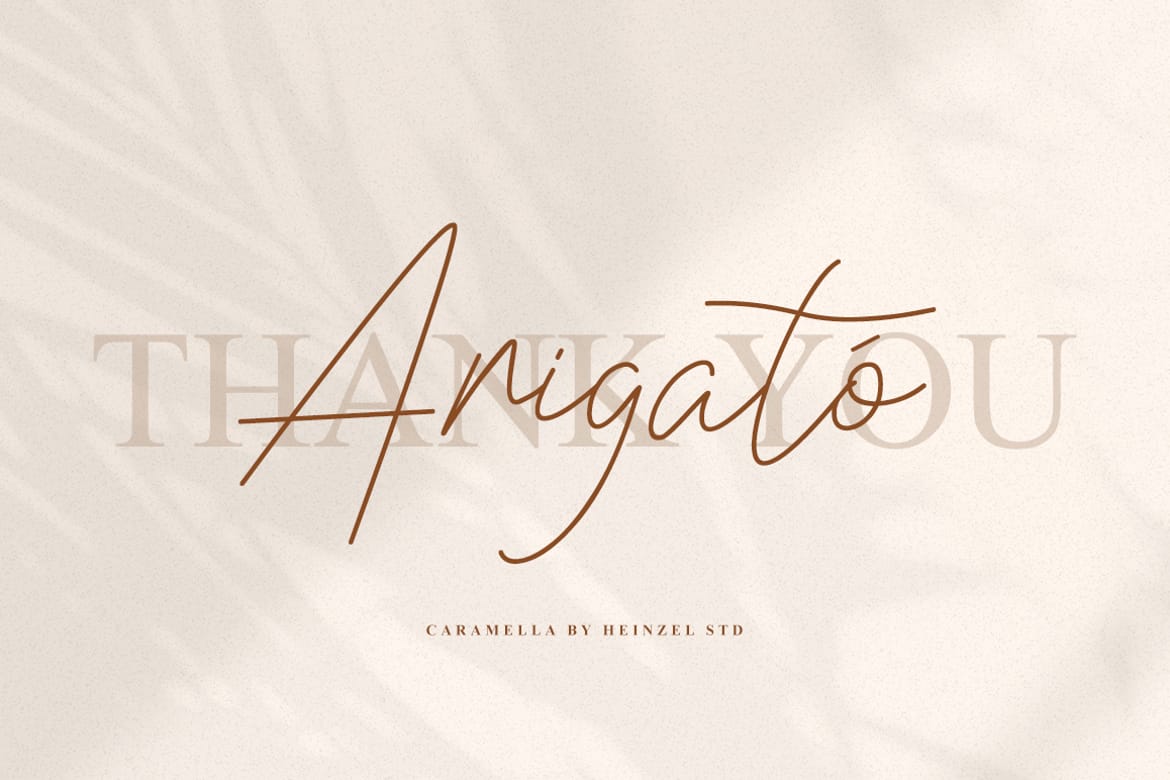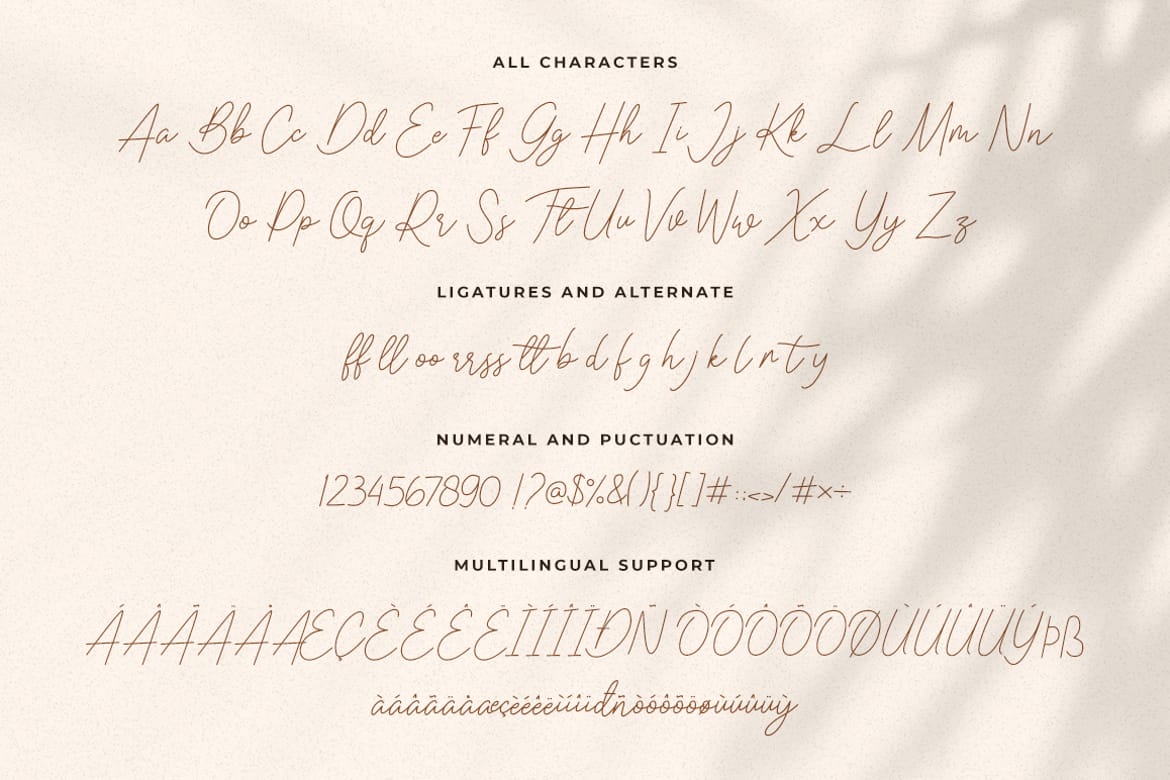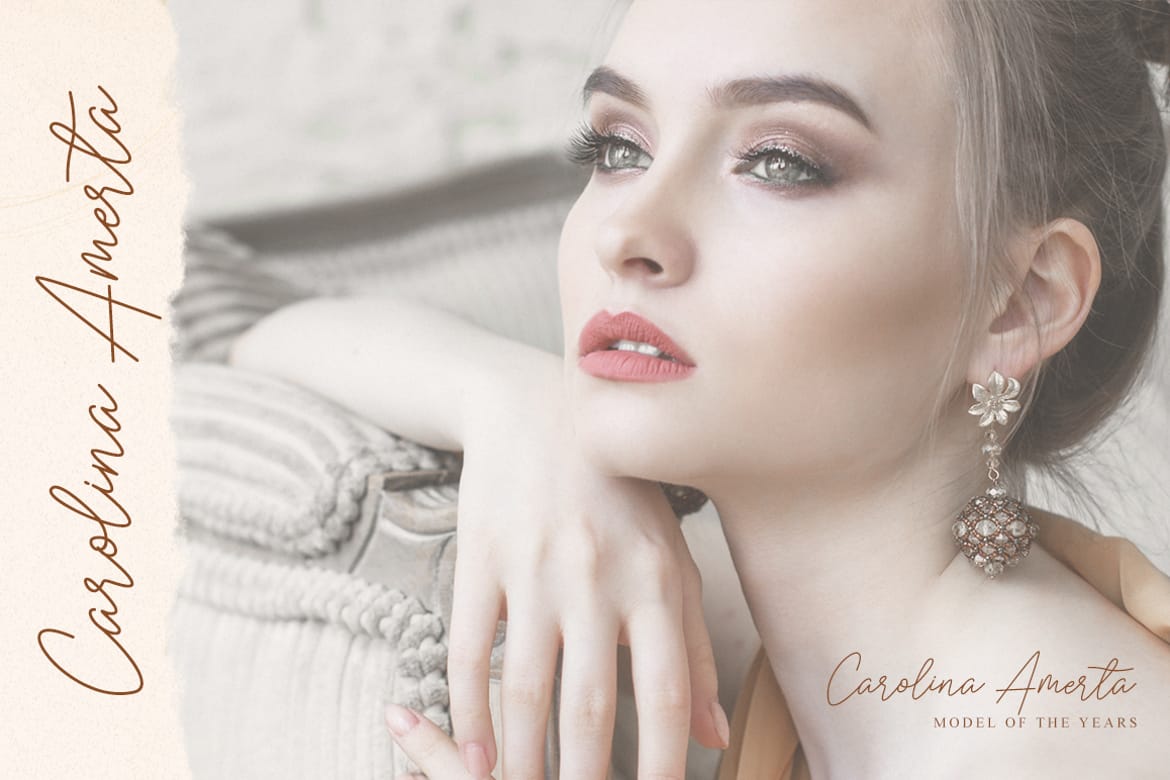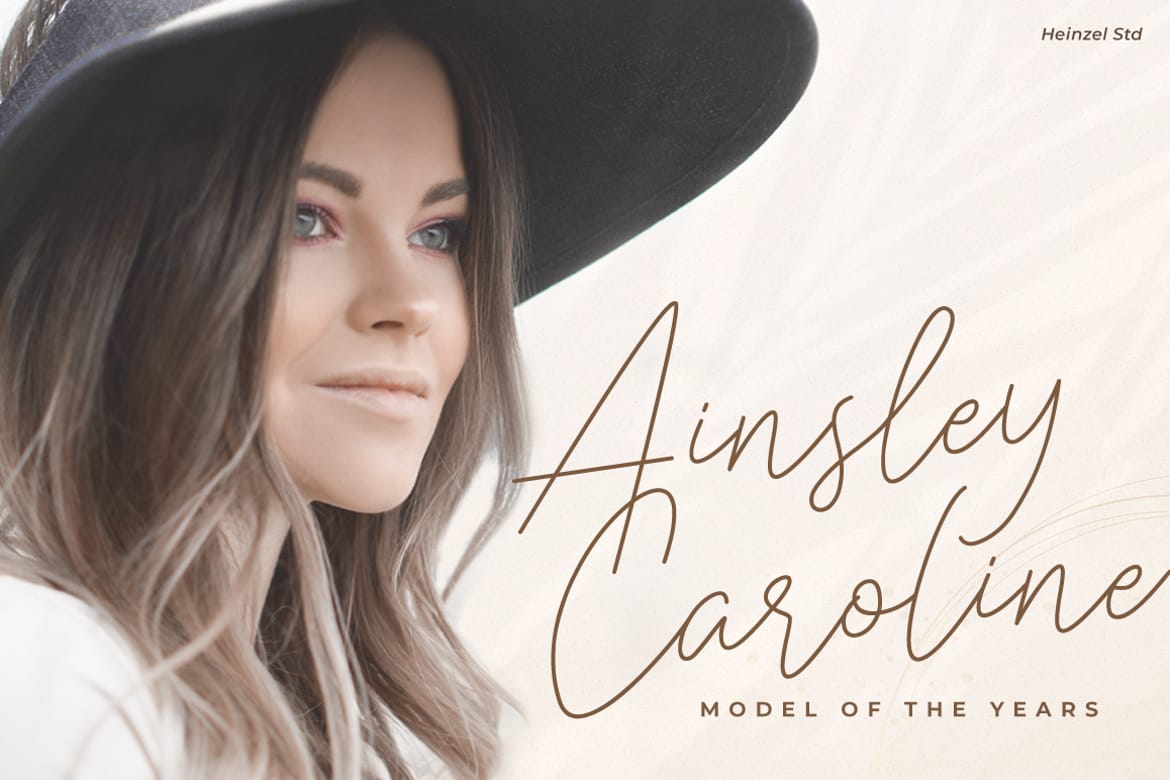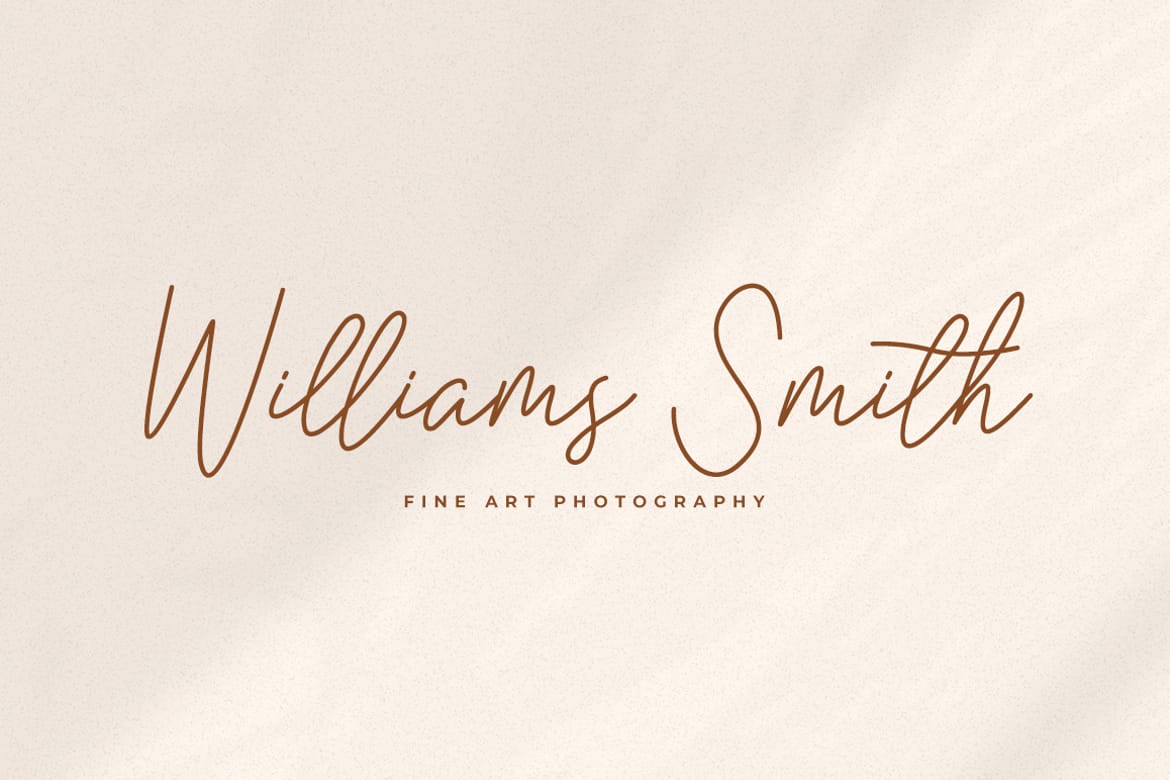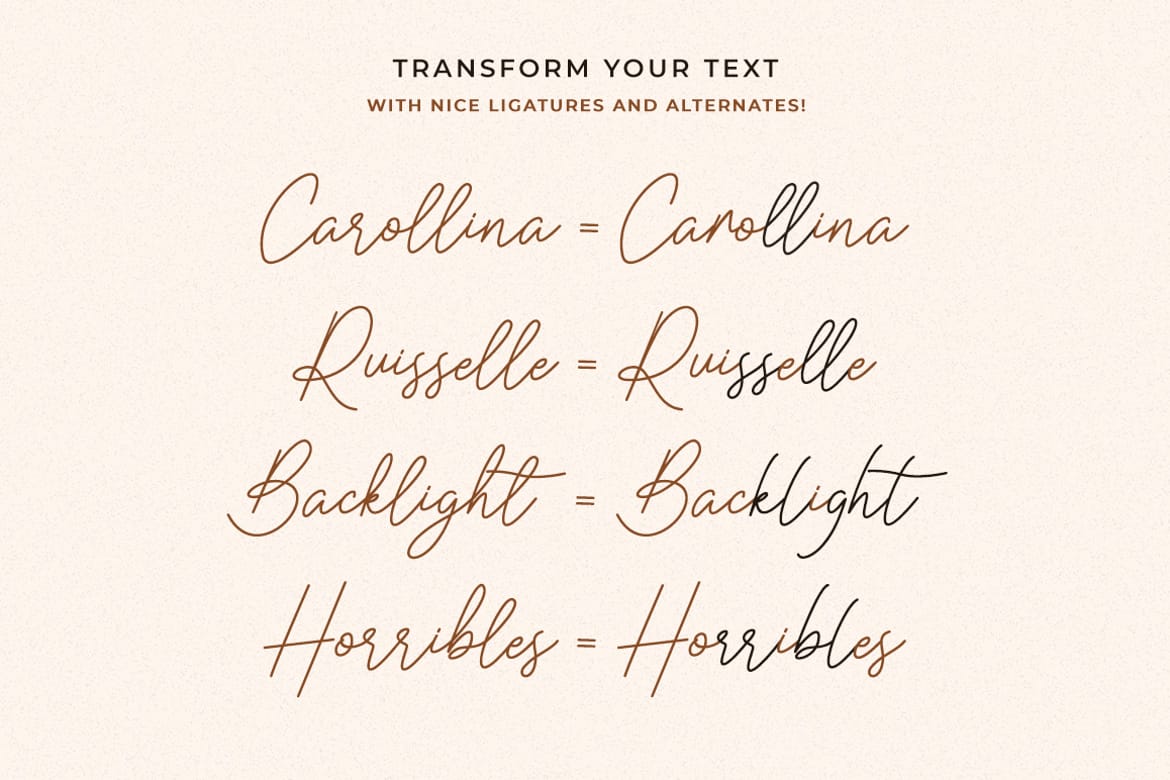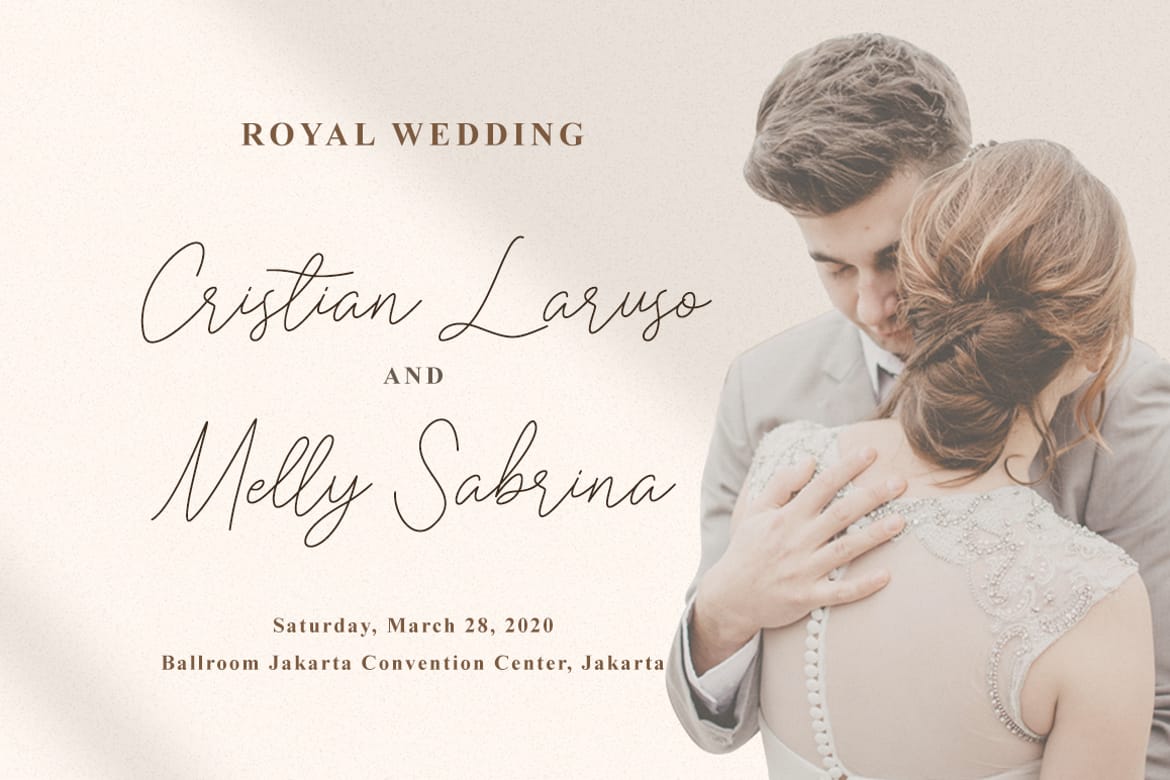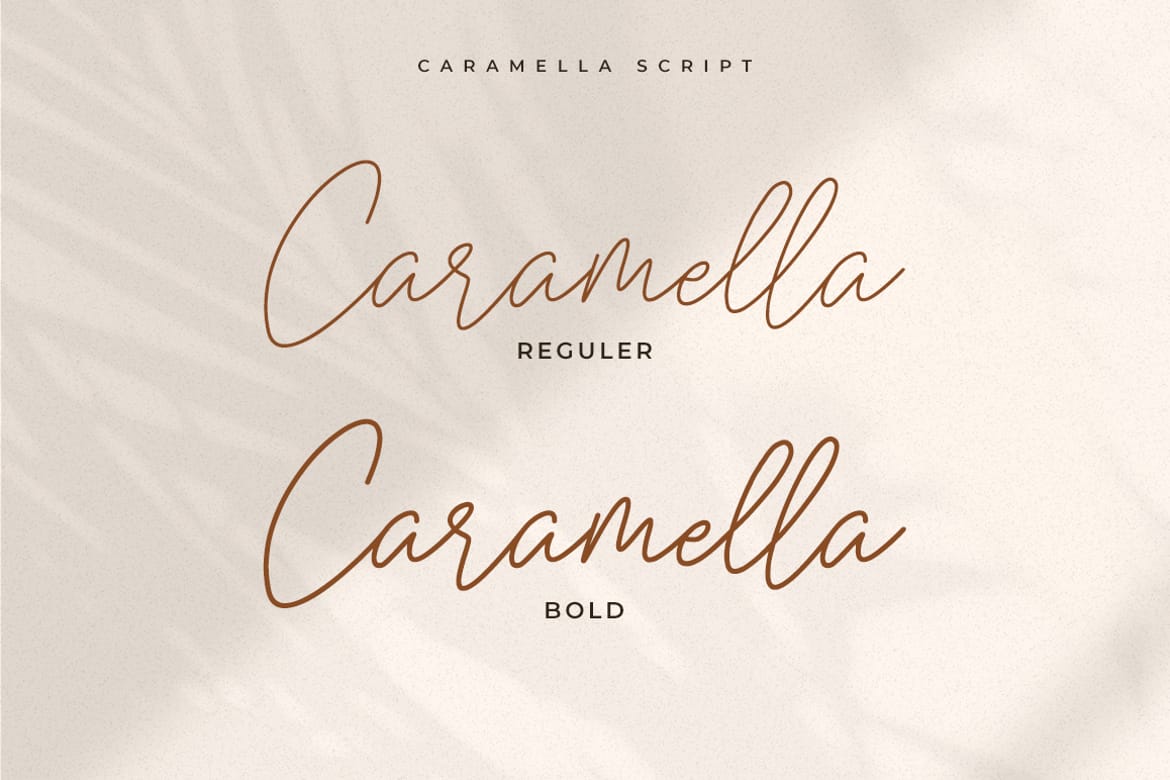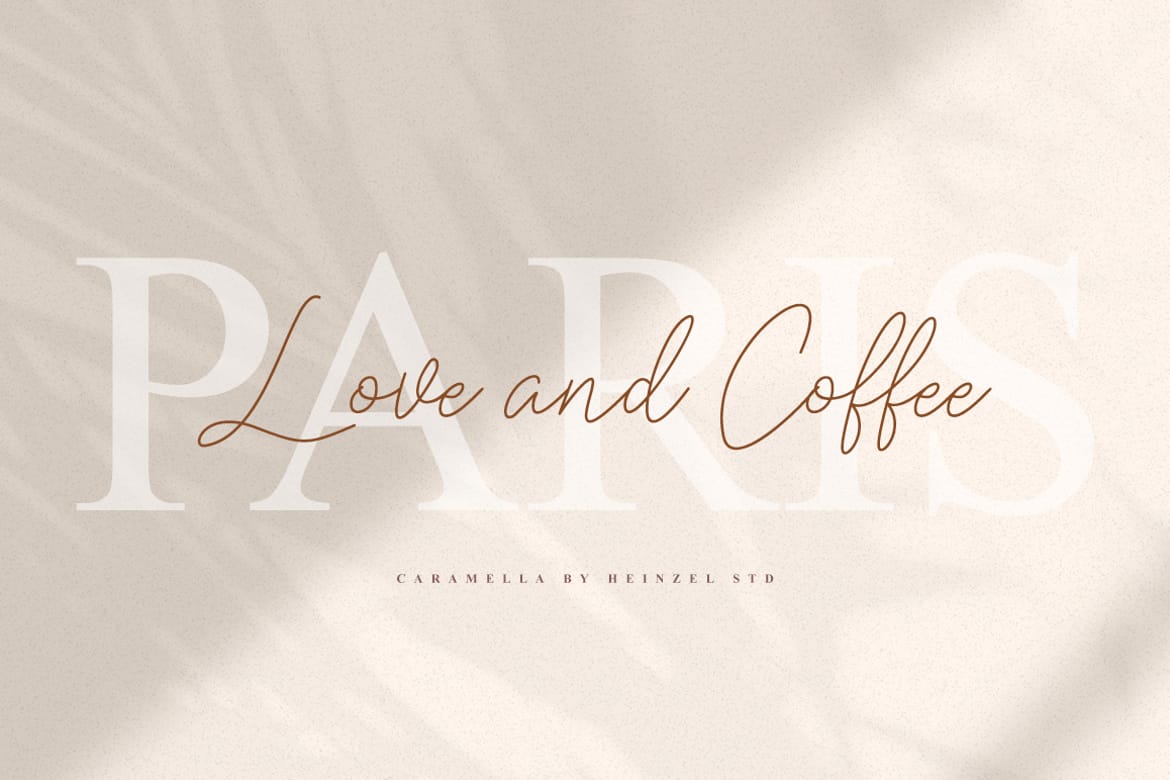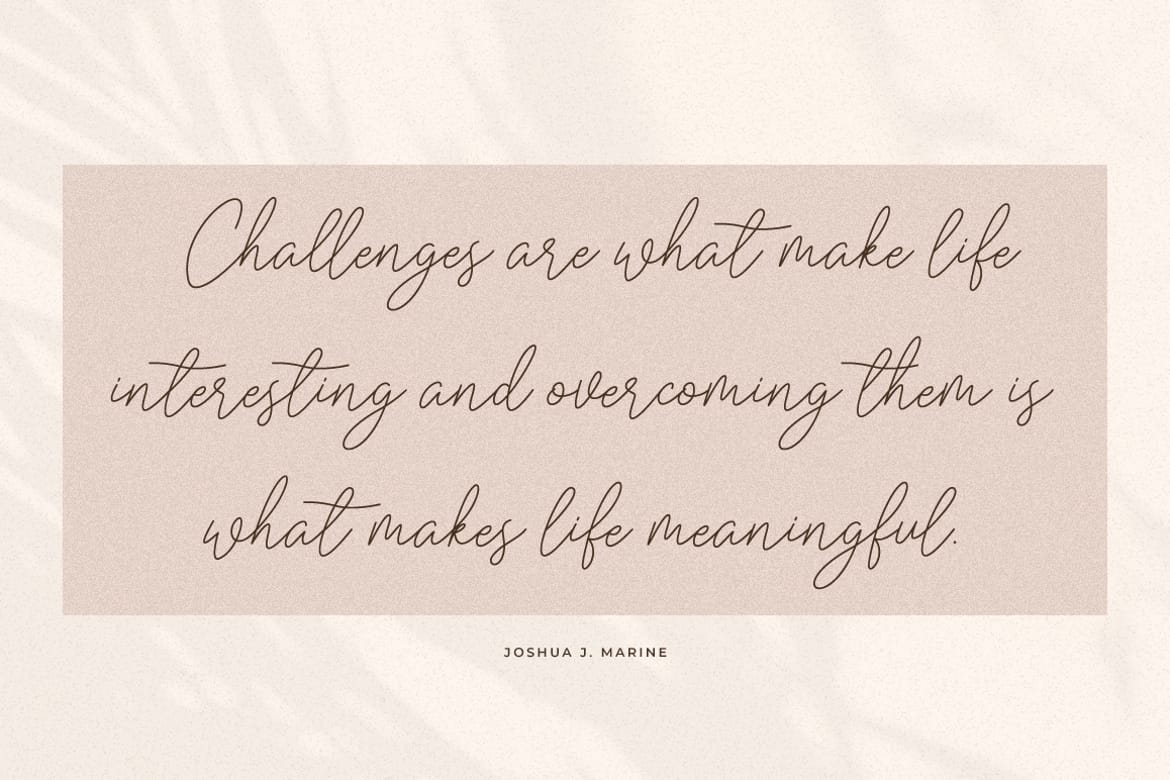
Caramella Modern Script Font
Caramella is a modern script font that blends elegant handwritten strokes with a smooth contemporary style. Designed with flowing curves and natural signature-inspired lettering, this font delivers a luxurious and feminine appearance perfect for branding, wedding invitations, logo design, social media graphics, packaging, fashion editorials, and premium stationery.
• Ligatures and Alternates
• Multilingual Support